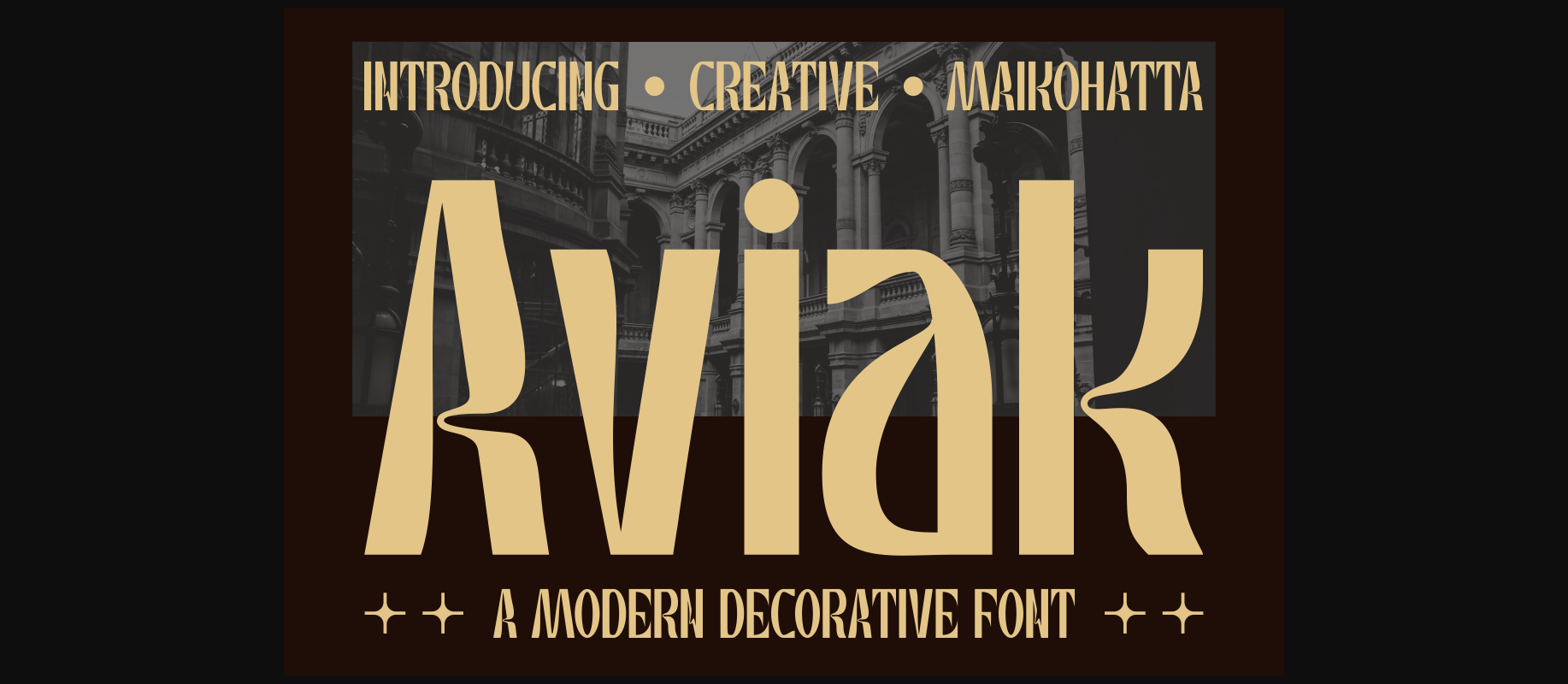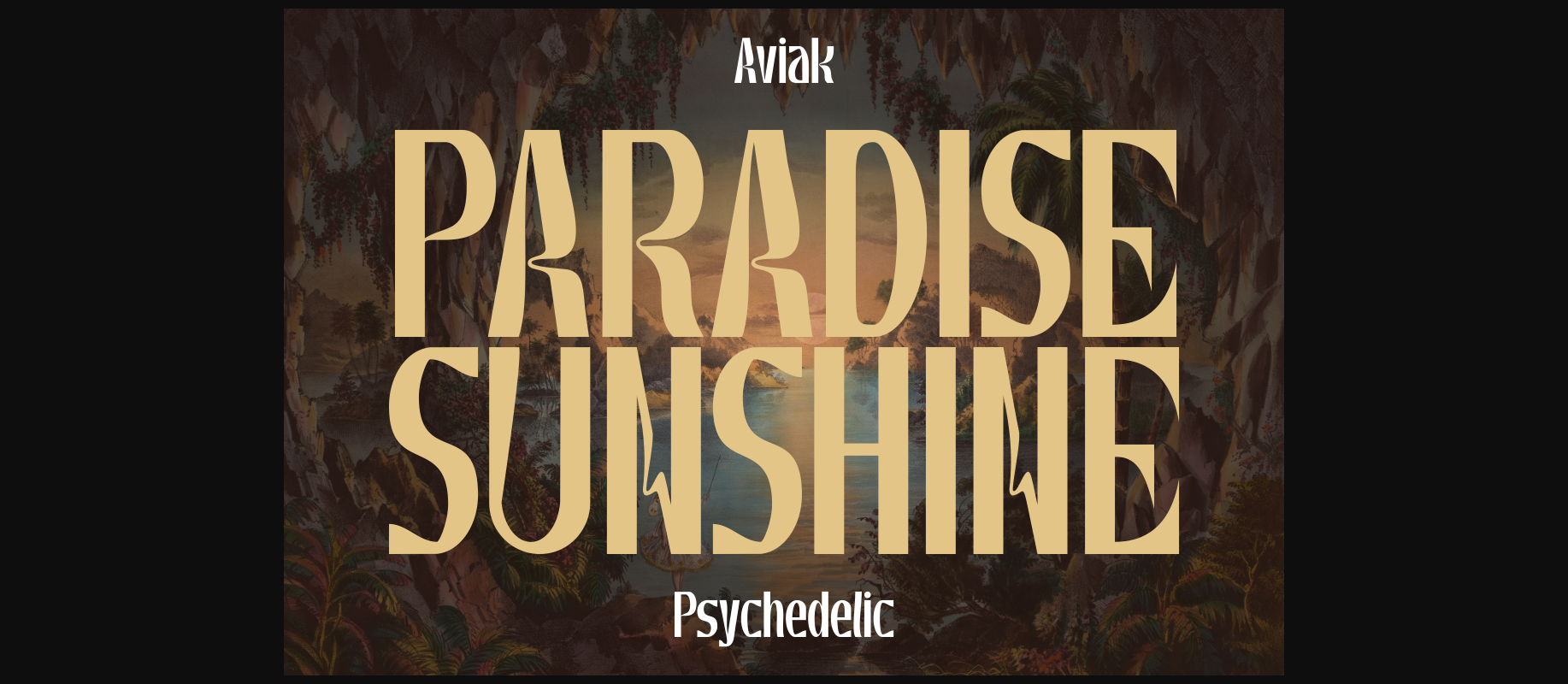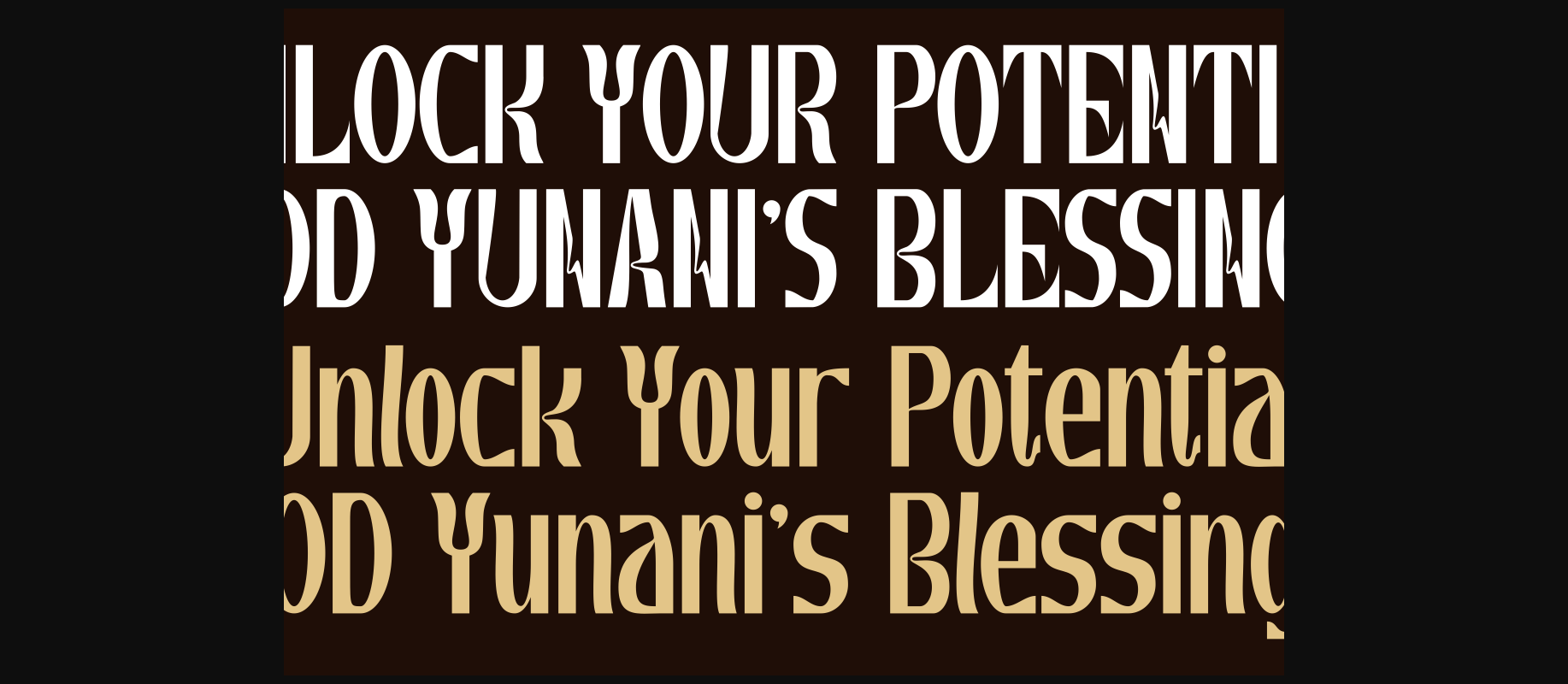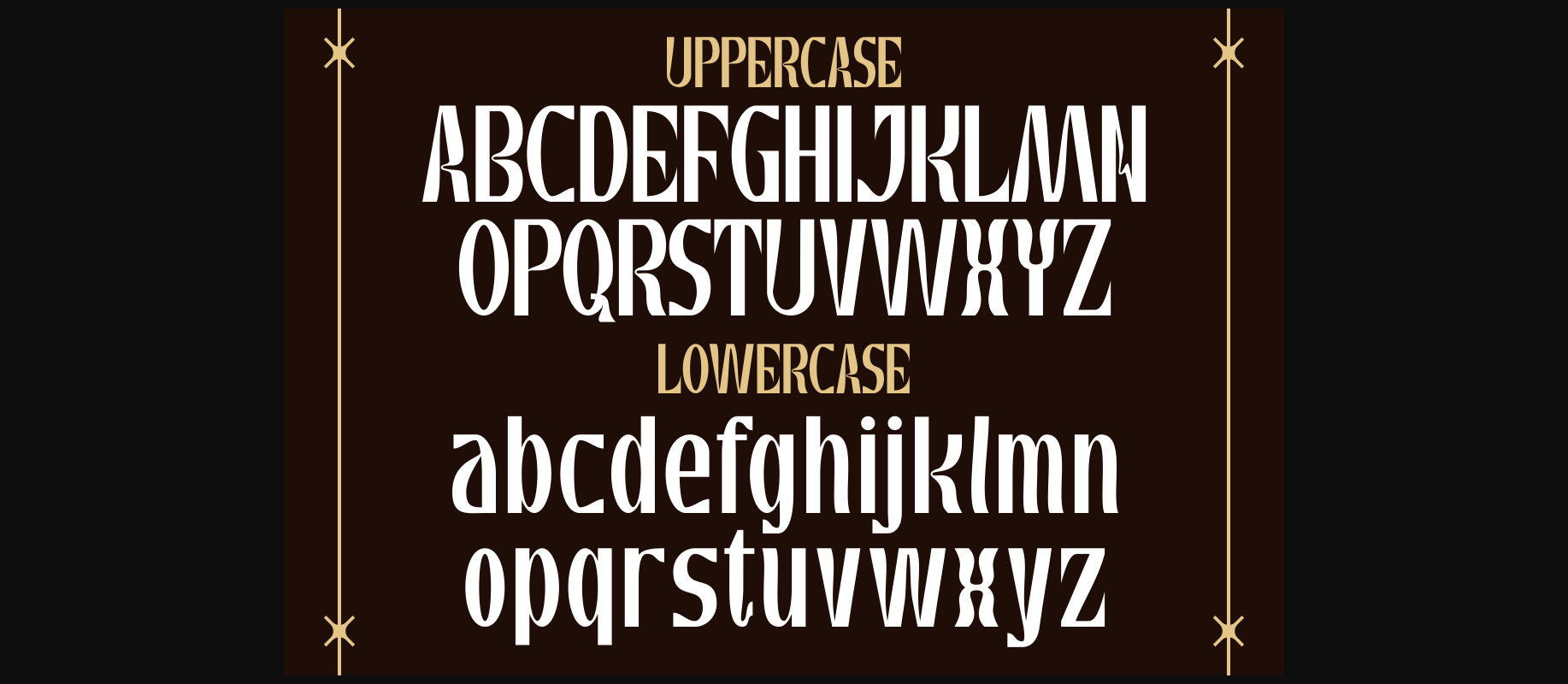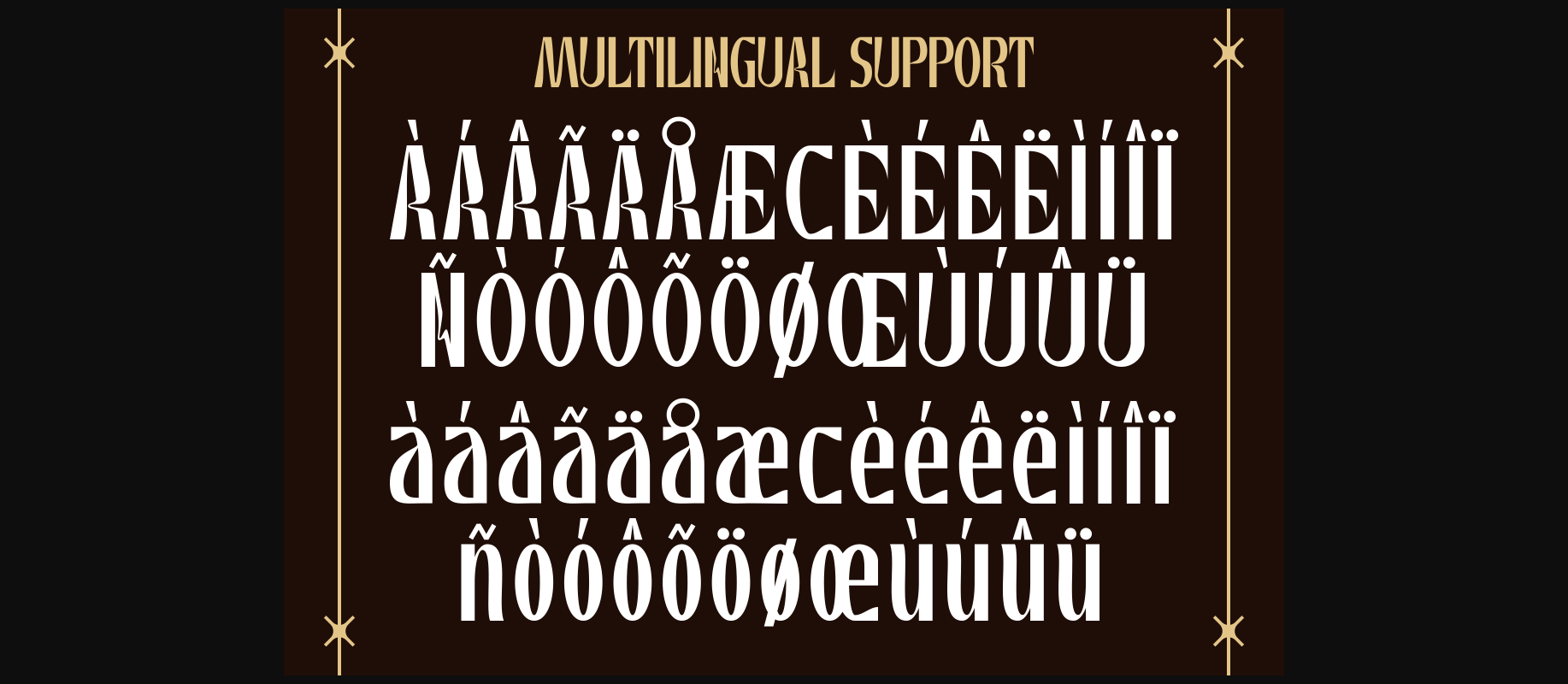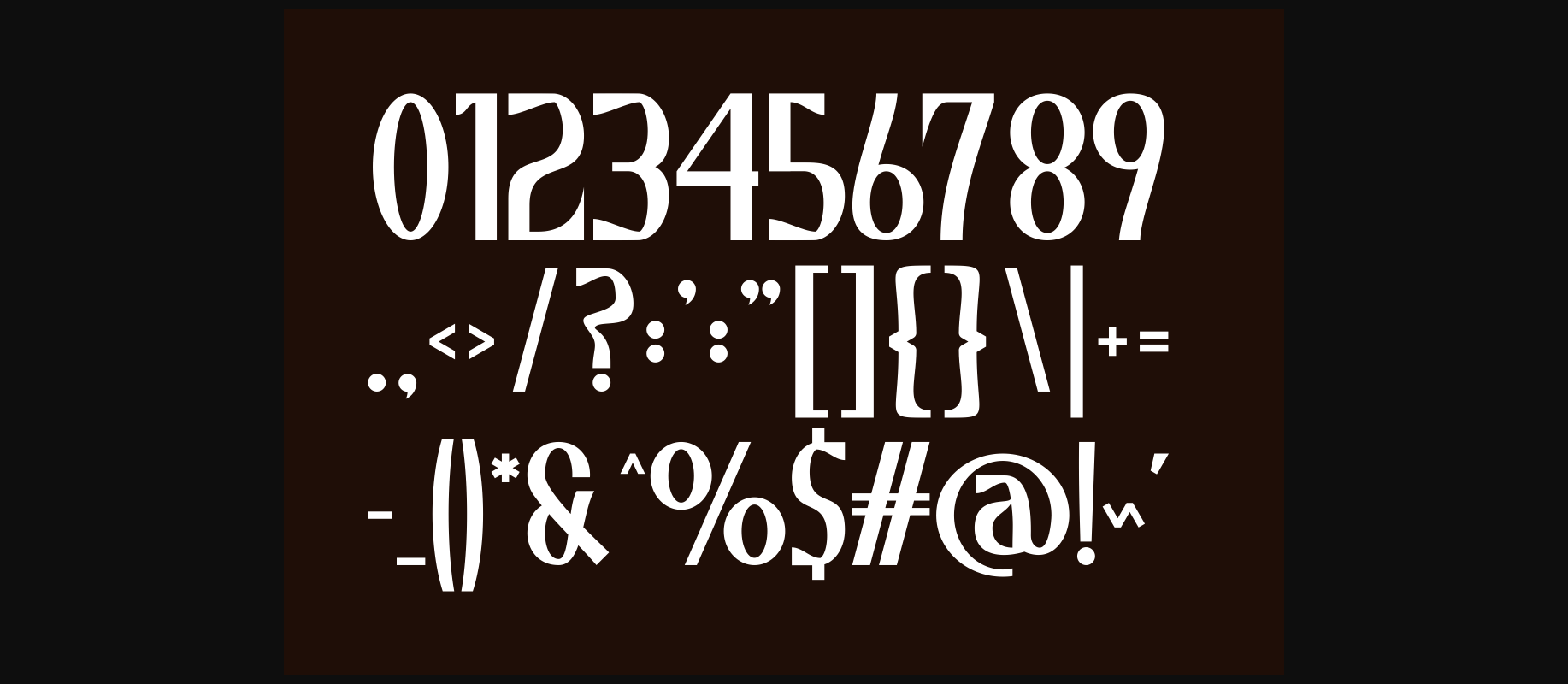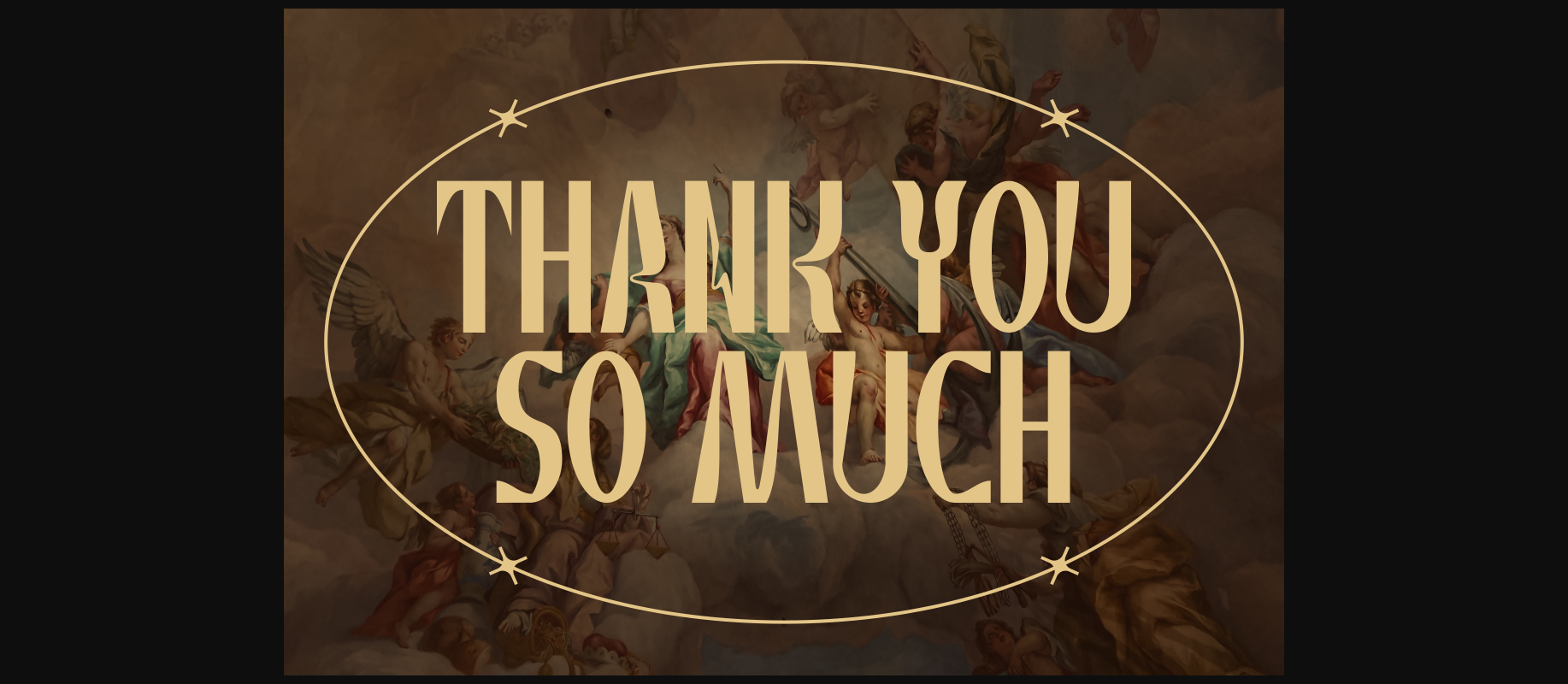
Aviak Font
About Aviak Font
This font has energetic and abstract characteristics with a contemporary design perspective, offering a captivating visual experience, making it a valuable tool for designers who want to infuse their projects with a sense of adventure and creative experimentation. Psychedelic style is a creative and expressive typeface, often combining artistic elements, colors, and eye-catching designs. This font is commonly used in graphic designs, posters, art, and promotional materials that want to create a striking, experimental, or unique visual appearance.